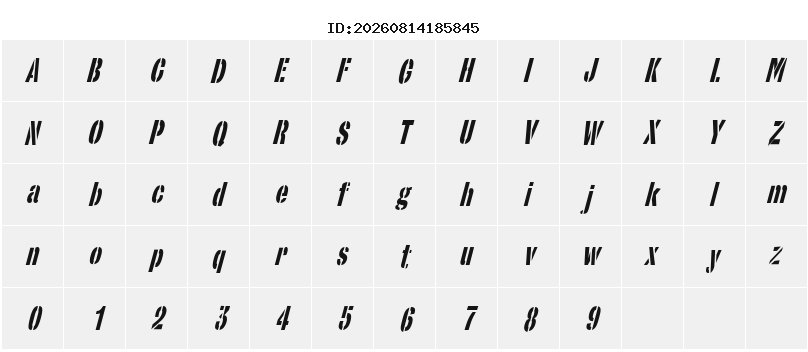
• Font Name: StencilSans Condensed
• Font ID: WSI: StencilSansCondensed Italic
• Full Font Name: StencilSans Condensed Italic
• PostScript Name: StencilSansCondensed Italic
About StencilSans Condensed.ttf
StencilSans Condensed.ttf is a modern, elegant sans-serif font designed for ultimate readability and visual harmony. Perfect for branding, headlines, web design, and print materials.